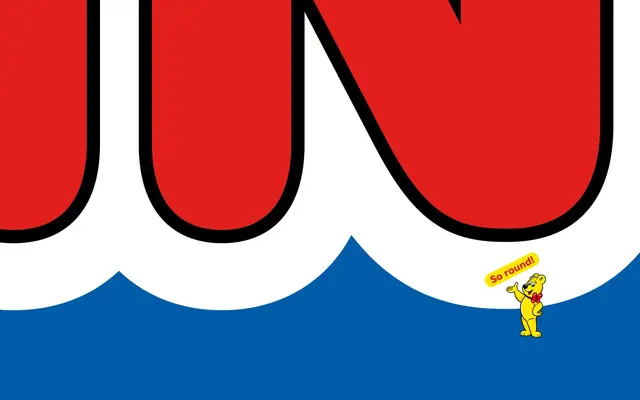
ABC Ginto Rounded
Dinamo Typefaces · Seb McLauchlan · 2021
ABC Ginto Rounded specimen from Dinamo Typefaces
The softer cousin of Ginto, a rounded geometric-humanist family in three widths from compact text to chunky Nord display.
A rounded geometric-humanist sans by Seb McLauchlan, sister to Ginto, Ginto Nord and Ginto Nord Condensed. Standard Ginto Rounded keeps a regular x-height and compact lowercase for smaller text sizes. Ginto Nord Rounded raises the x-height and widens characters for chunky display work, and Ginto Rounded Nord Condensed handles narrower moments. A variable font ties both Nords together so widths can be tuned across spatial contexts. Eight weights with italics across all three widths give brand systems room to range from text to billboard.
Dinamo describes Ginto Rounded as a geometric-humanist font of soft edges and playful forms, exploring tension between circular shapes and moments of sharpness, with proportion models that nod to Futura.
Optical sizes and widths
standardnordnord condensed
Family
Ginto Rounded NordGinto Rounded Nord Condensed